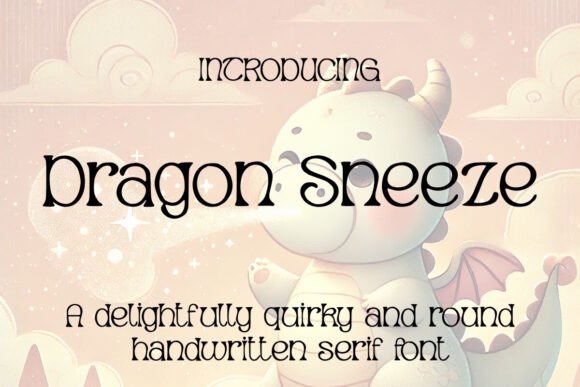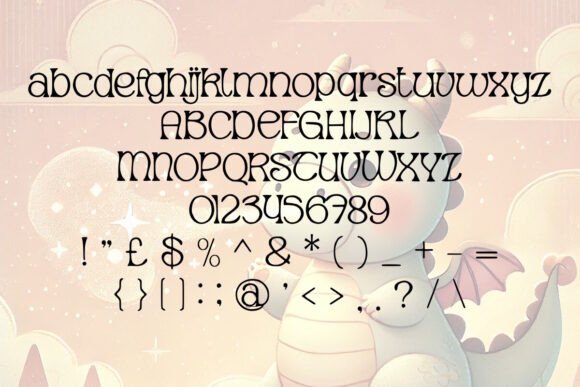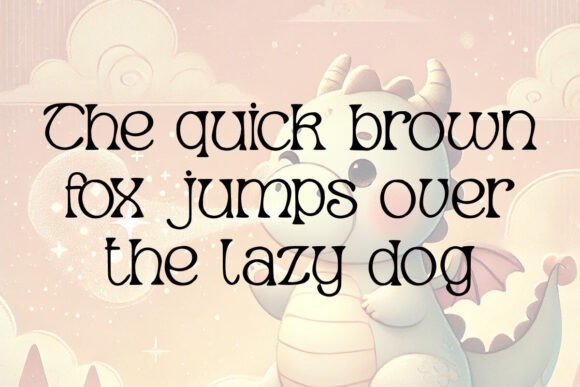
Dragon Sneeze Font: A Cute Serif Typography for Playful DIY Designs
About the Dragon Sneeze Font
Discover the charm of Dragon Sneeze Font. This font is a perfect blend of modern aesthetics and classic appeal. Add a touch of storybook magic to your designs with Dragon Sneeze! This charming, rounded serif font blends a soft, plump feel with a hint of mystical mischief. Whether you’re crafting a fairytale title, a magical invitation, or a cozy journal spread, this font will bring a playful, warm vibe to your work.
Dragon Sneeze excels in display applications such as headlines, titles, short quotes, and logos where its playful charm shines. It’s ideal for children’s books, whimsical branding, invitations, and packaging designs needing a touch of friendly magic. Avoid using it for large blocks of body text or UI elements; its rounded forms can reduce readability in extended passages.
This font’s personality is best described as playful and whimsical, yet warm and inviting. To balance its rounded forms, consider pairing it with a clean sans-serif like Open Sans for body text or a more geometric sans-serif like Futura for a modern contrast. For a more cohesive fairytale feel, pair it with a delicate script font.
For a sophisticated yet playful look, a neutral serif like Garamond could also work well, providing a grounding element against Dragon Sneeze’s more whimsical nature. Avoid pairing it with overly heavy or aggressive fonts; the contrast would clash with its charming essence.